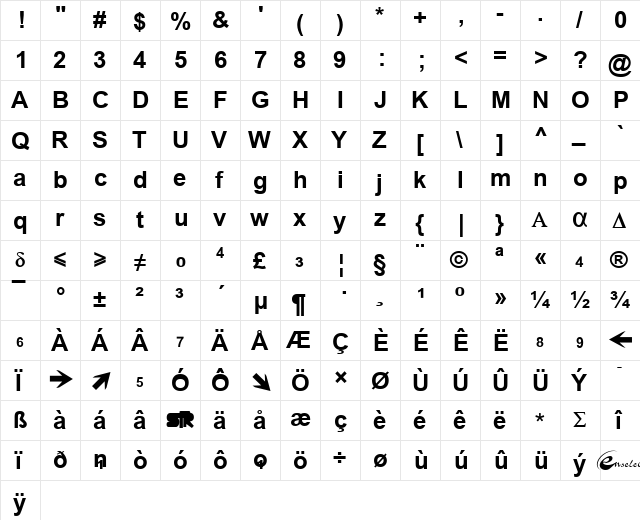
Enselec Bold
Design Context for Enselec Typeface
Enselec takes a measured approach to typography — its balanced proportions and neutral character make it a reliable workhorse for both digital and print work. Its bold stroke weight gives it real presence on the page.